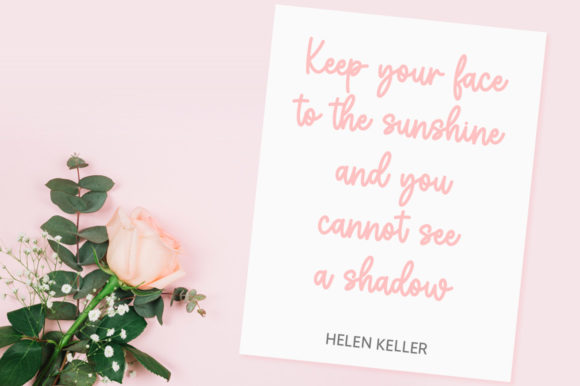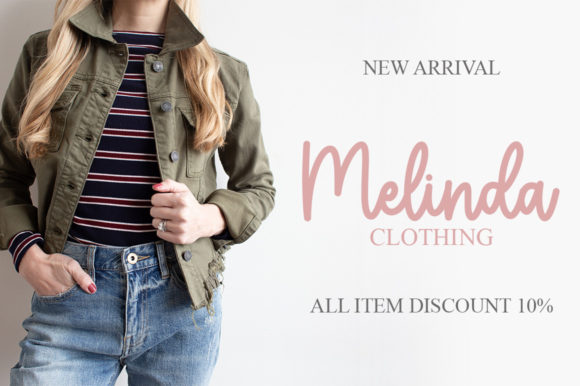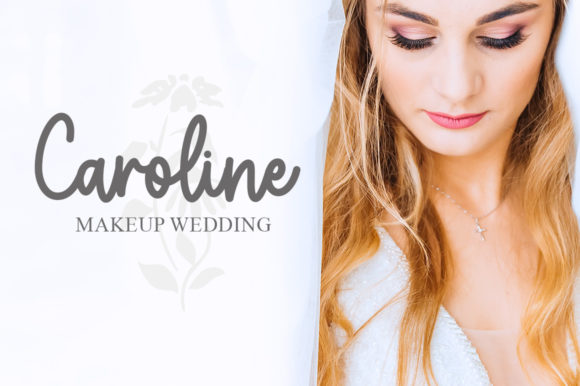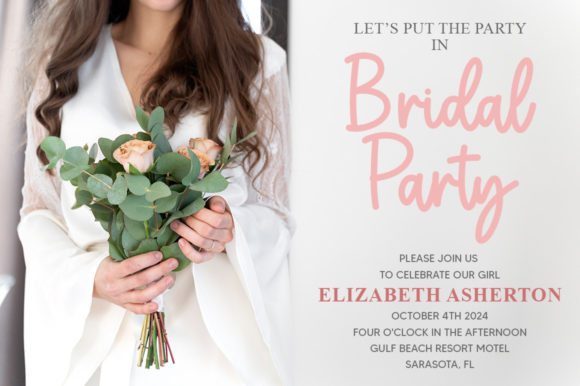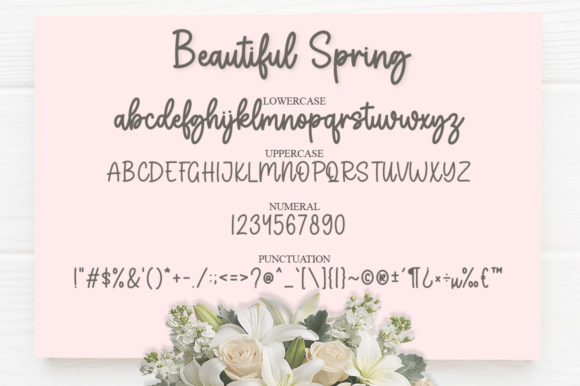
Beautiful Spring Font
About Beautiful Spring Font
“Beautiful Spring” is a dainty and flowing handwritten font that embodies a sense of delicacy and grace. This font’s sweet and joyful appearance makes it a perfect choice for writing wedding invitations, cards, and other designs that require a romantic and personalized touch.
The font’s dainty and flowing handwritten style exudes a sense of elegance and charm. Whether you’re working on projects that demand a touch of delicateness, a hint of romance, or a personalized feel, “Beautiful Spring” can enhance your work with its artistically pleasing appearance.
The font’s suitability for creating romantic and personalized designs makes it well-suited for a variety of creative applications. From crafting enchanting wedding invitations to designing heartfelt greeting cards, the font can elevate your designs with its distinct and tender charm.
In essence, “Beautiful Spring” is more than just a font—it’s a creative resource designed to elevate your design projects. Its dainty and flowing handwritten style, along with its suitability for romantic and personalized designs, make it a valuable tool for designers striving to create designs that are visually appealing, emotionally resonant, and filled with romantic beauty, leaving a lasting impression.